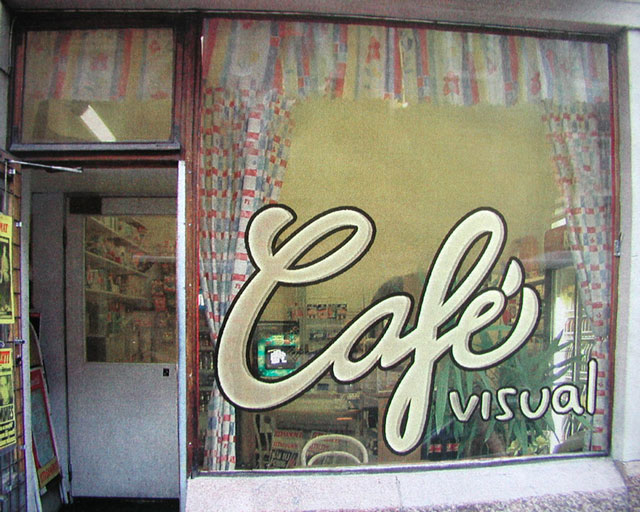
![]() ![]() ![]() shop lettering basic info : thoughts and ideas : presentation half way : ![]() Assignment Take an existing shop in Helsinki and in Lahti and make a new lettering for these shops. For the window, or for a plate outside. Maybe he even needs a new text to promote his company? Make him sell more with your type. Process Our groups assignment was a bit different from the others since we had to do two projects during the two weeks where the others were working on only one. In Helsinki the project was some what a learning experience, we went to several shops that were ugly and found out that the people in the stores werenÍt interested in getting a free design suggestion for their window. In Helsinki we spent the first three days contemplating on which place we should choose and that turned out to be a mistake. We ended up re-designing the Cafe Visual, where we found a shopkeeper that spoke only vietnamese. We finished in the next two days, after fiddling around with pens and papers. Next week in Lahti started with the expectation that we can probably do the thing better. We decided not to spend so much time on walking around in the coldness but just start working, anyway, we had to be finished by Wednesday. This time we were happy to find Maustemesta spiceshop where the owner was polite and interested. So, Monday and Tuesday were the days of pens and a lot of paper. On Wednesday, a quick scanning then working on the letterforms and finishing. On Thursday we went back to the shop where the owner judged our work. He didnÍt have too much to say, just that it was all nice. His wife preferred Jan's work saying that it was the spiciest and most effective. Final solution Our group managed to finish the assigned two shopwindows, each in about two days but not without problems. Actually, the problems built up so that one person in the group decided to quit. We found out that making a handmade logotype as a group can be very hard, especially when there's only two days for it. As a result, everyone ended up making their own propositions since just doing the sketches does take more than few hours. The biggest problem was that the people in the group had very differing ideas of the assignment and the course. Some had an idea that the handmade logo could be rather free in form, others thought that the letters could look more like existing typefaces. Some had expected the course to be more basic typography, some more experimental. Also the way the shopkeepers reacted to our proposition of free design in Helsinki was suprising to us. Their lame interest and negative attitude wasn't exactly encouraging. Maybe we chose a bit too undesigned and careless places in the first place. In Lahti we succeeded in this task much better which made the whole process easier. As a conclusion the group feels that we learned not only things about handmade typo but also about working as a group. Of course the handmade, fine-tuned typography can be seen now with a new pair of eyes and maybe there is more respect for it from now on! ![]()
![]() 4 comments so far: read comments ![]() ![]() Tamye | SOTA -- Friday, October 25 2002, 08:48 am This shopkeepers don't deserve all your efforts! Their taste is all in their mouths. Taru's #2 for Visual Heaven is very whimsical, but doesn't seem to fit in with this type of shop. It's the halo that kills it... Jan's #1 - the word cafe looks very nice. The letterforms have a nice flow. Perhaps the word visual should be more distinctive, however. For the spice shop! I like Jing's design the best for this purpose, because the letterforms are large and have a great personality, and high-contrast color. Very funky and cool. Jan's design for this, letters are nice, but please, no chili peppers to signify hot or spicy, it's such an overused visual gimmick. But every single one of these designs is far superior to the original. Congratulations on producing such fine work with such a tough subject, and such a short deadline. Future clients will also have these bad attitudes, so don't be discouraged. Jan Middendorp -- Friday, October 25 2002, 03:59 pm I'm not going to comment on the results -- they all have some interesting aspect, and none of them convinces me totally. Mause Mesta 1 by Taru is a good logo, but it shouldn't be on a whitewhashed window. What's most interesting about this work is the way you clashed with all the aspects of the process: the "clients" (who did not even want to be clients), the disagreements within the group, the lack of time. Probably this project was closer to real life than all the other projects! hugo@visionandfactory.com -- Friday, October 25 2002, 04:10 pm I agree with Jan. It must have been so interesting to do a job like these. Without any discussion with the owner, but with so much discussing between each other. I do like Jing's design because it is doing what it should do: "hiding". And in some way or another also "exposing". Very intelligent. I also like the hand made aspect of all the designs. Sometimes it OK to get rid of too much technology ad just breathe. Great job. Hugo Puttaert http://www.visionandfactory.com ed -- Wednesday, October 30 2002, 10:18 pm Yes! The clean-cut computerized lettering is wisely thrown out of the window, so to speak. This is what I believe is decent work for interesting the (potential) costumer and the incidental tourist alike. I feel that (larger) companies and the concerning city-councils would be smart to take a look at this kind of lettering to improve the aesthetics and comfort of the public zone. ![]()